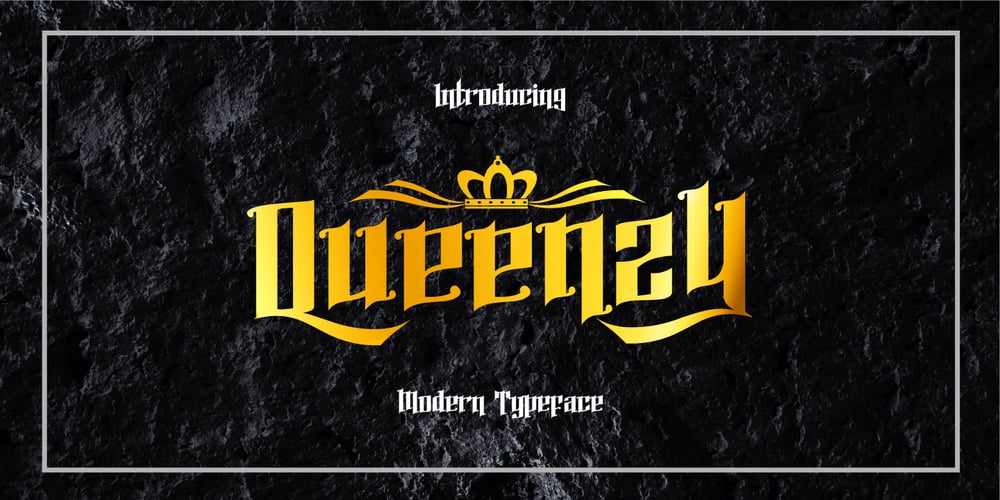
Queenzy Font Family was designed by Ahmad Zulfikar Ali and published by ZetDesign. Queenzy contains 2 styles and family package options. Introducing my new font “Queenzy” Queenzy is made by paying attention to details on each letter so that it produces a beautiful arrangement of letters that can be used in each of your design work. I hope you like my creation.This font is also made in an italic version